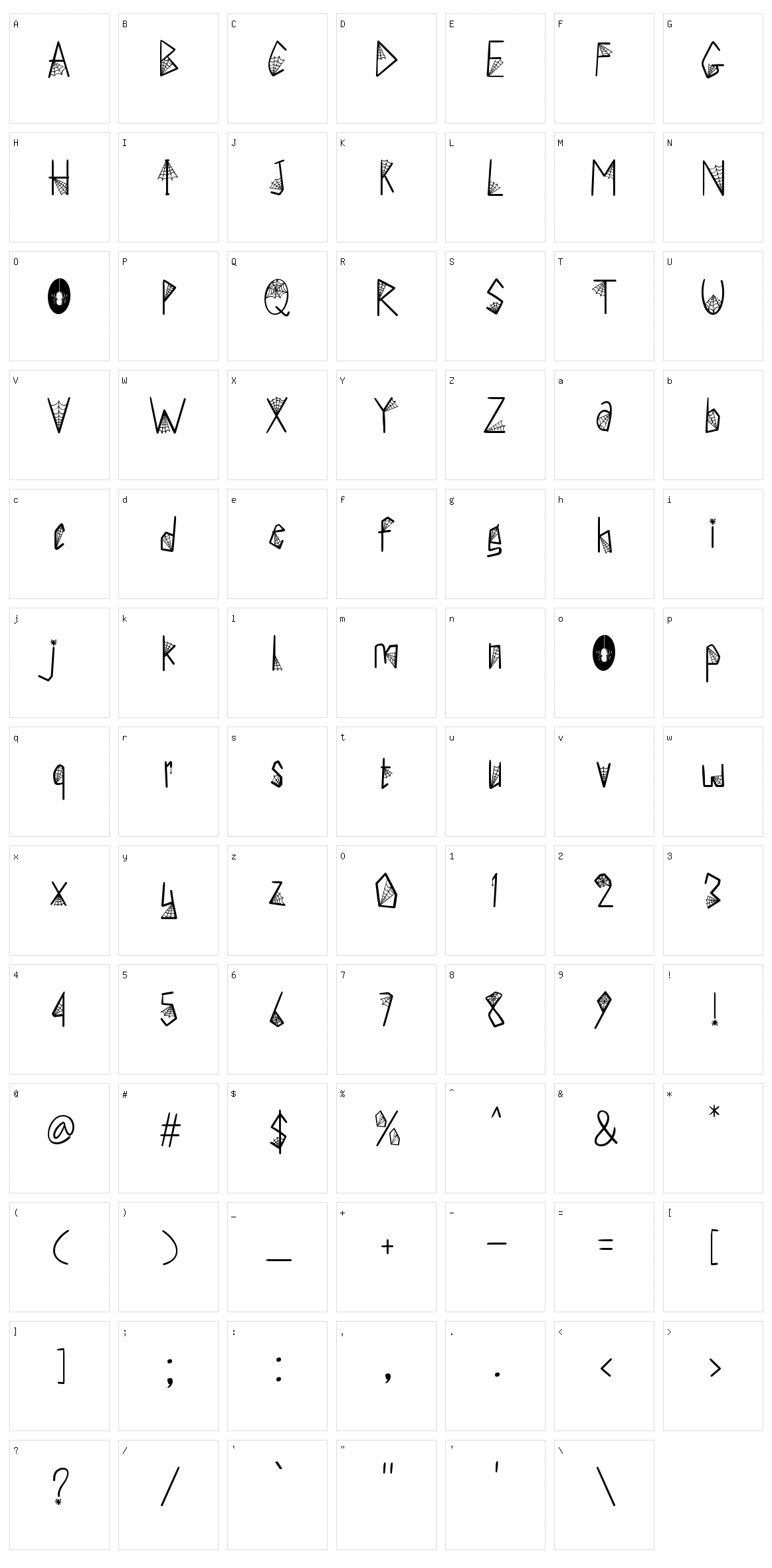
The free font Spider Ghost is carefully designed by Letterafa Studio, showcasing a thoughtful balance of creativity and usability and falls under the Halloween font style. When you download the ZIP file, it contains only 285.77 KB of font files, making it lightweight and quick to download. Please review the license details below to understand permitted usage and distribution rights. If license information is not available, we recommend using this font for personal projects only or contacting the author directly for commercial usage permissions.